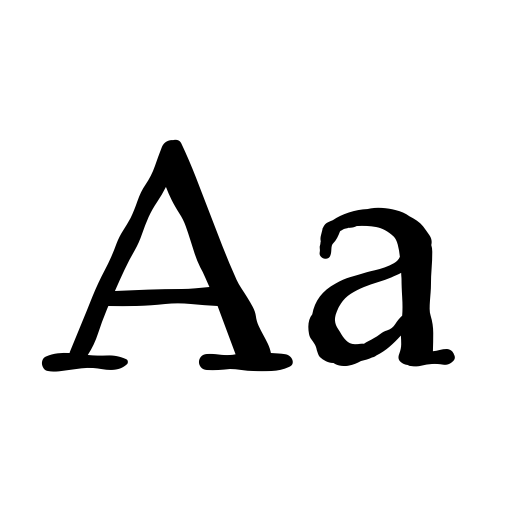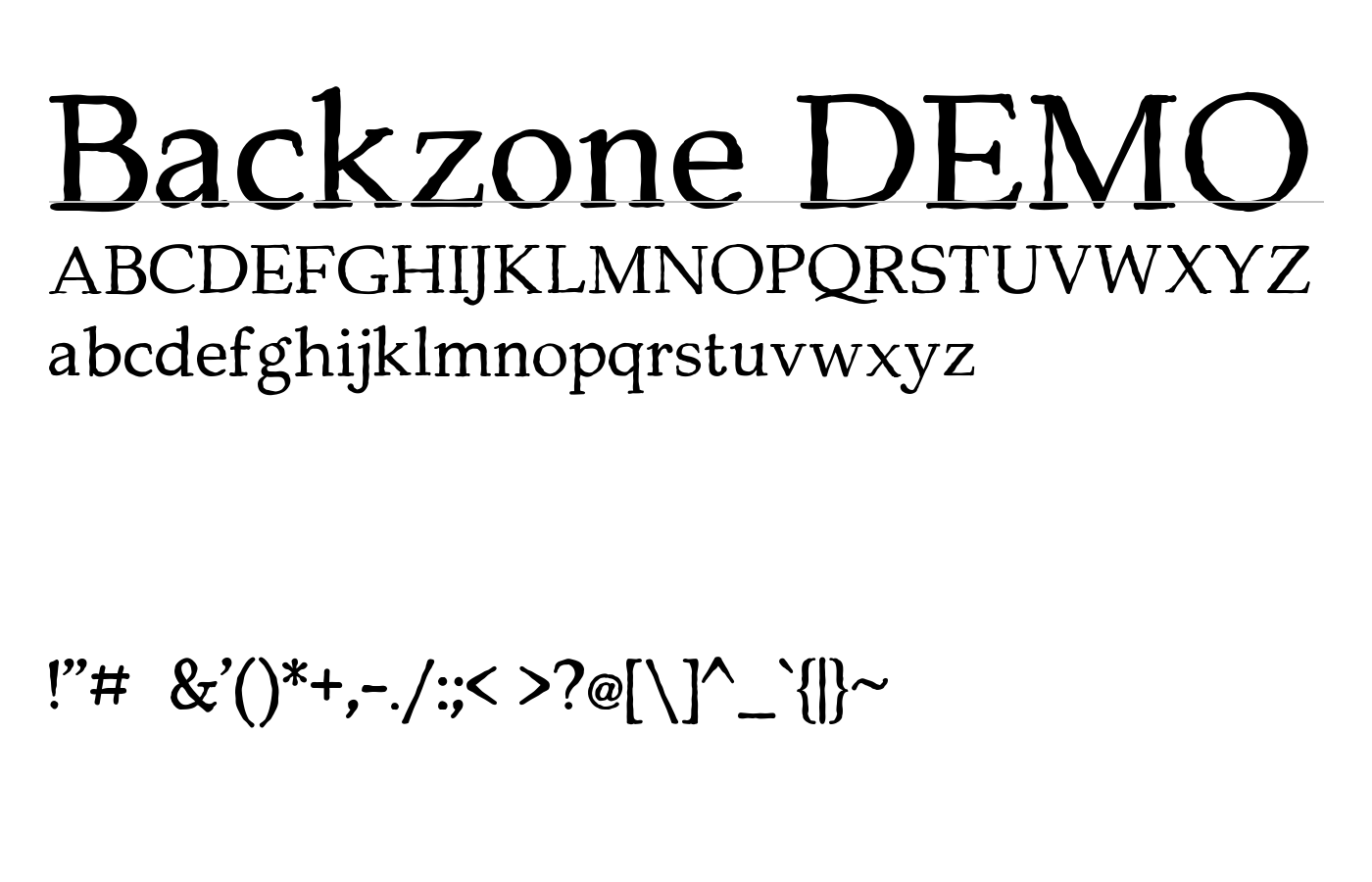
Backzone DEMO is a handcrafted serif font that combines a rustic, slightly uneven stroke style with classic letterforms, giving it an organic and approachable feel. Its medium weight and moderate contrast, paired with subtle irregularities, make it ideal for designs needing a warm, vintage touch while maintaining legibility. This font works well for editorial projects, branding, and packaging where a unique, artisanal personality is desired.
Backzone DEMO Font
About Backzone DEMO Font